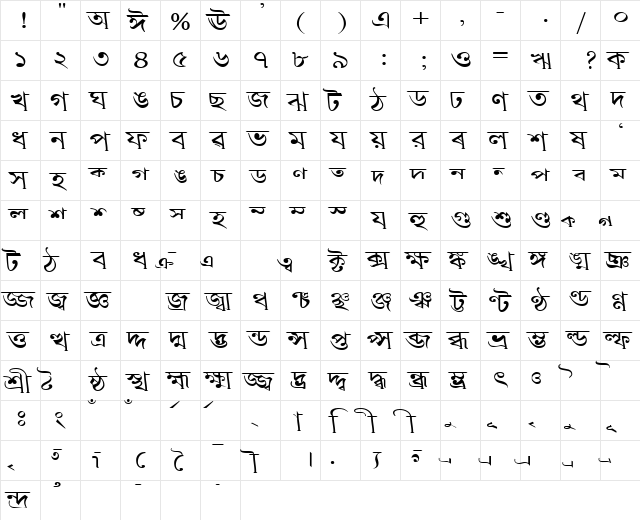
AkrutiBngVivek Normal
Design Context for AkrutiBngVivek Typeface
AkrutiBngVivek offers clean, dependable letterforms without strong stylistic allegiance, making it a practical choice for designers who need flexibility.